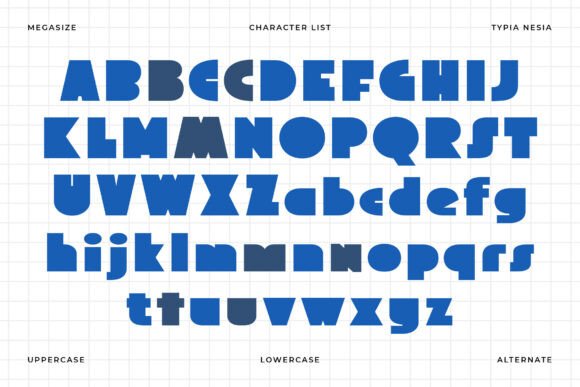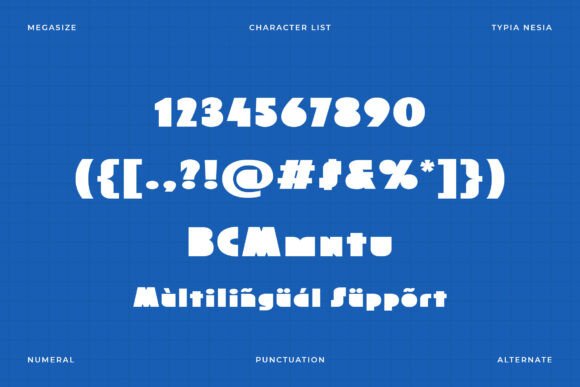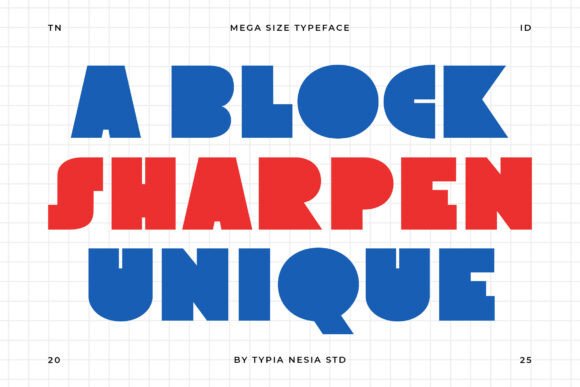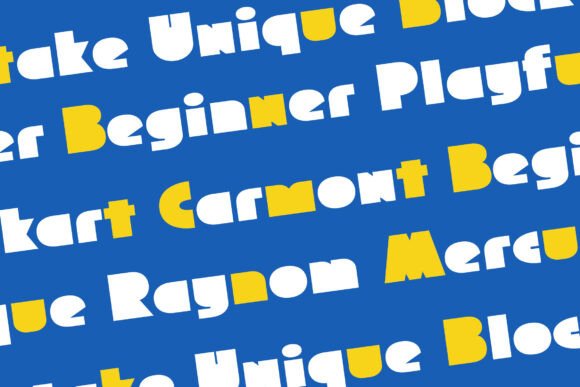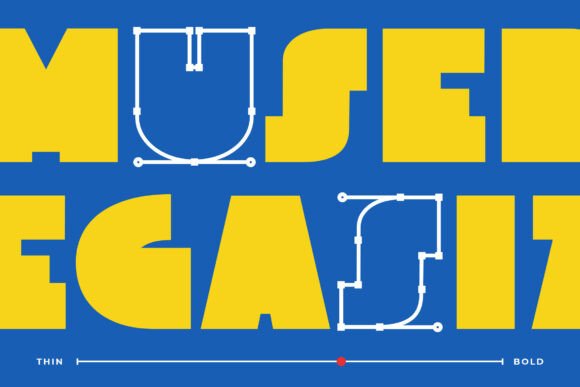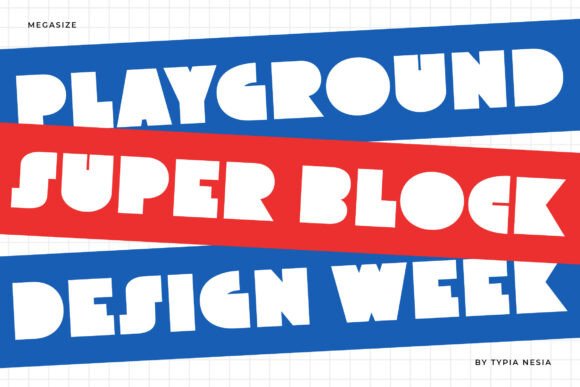
Introduction to Mega Size Font
Mega Size – Bold Solid Geometric Logo Font – Modern Playful & Fun Minimal Display Font Mega Size is a bold and modern display sans-serif font designed to grab attention.
With its solid, geometric shapes, this typeface is perfect for headlines, logos, posters, packaging, merchandise, advertising, and any branding project that needs a strong, playful, and unique visual presence Each character is crafted with precision to create a sturdy, legible look, even at large sizes.